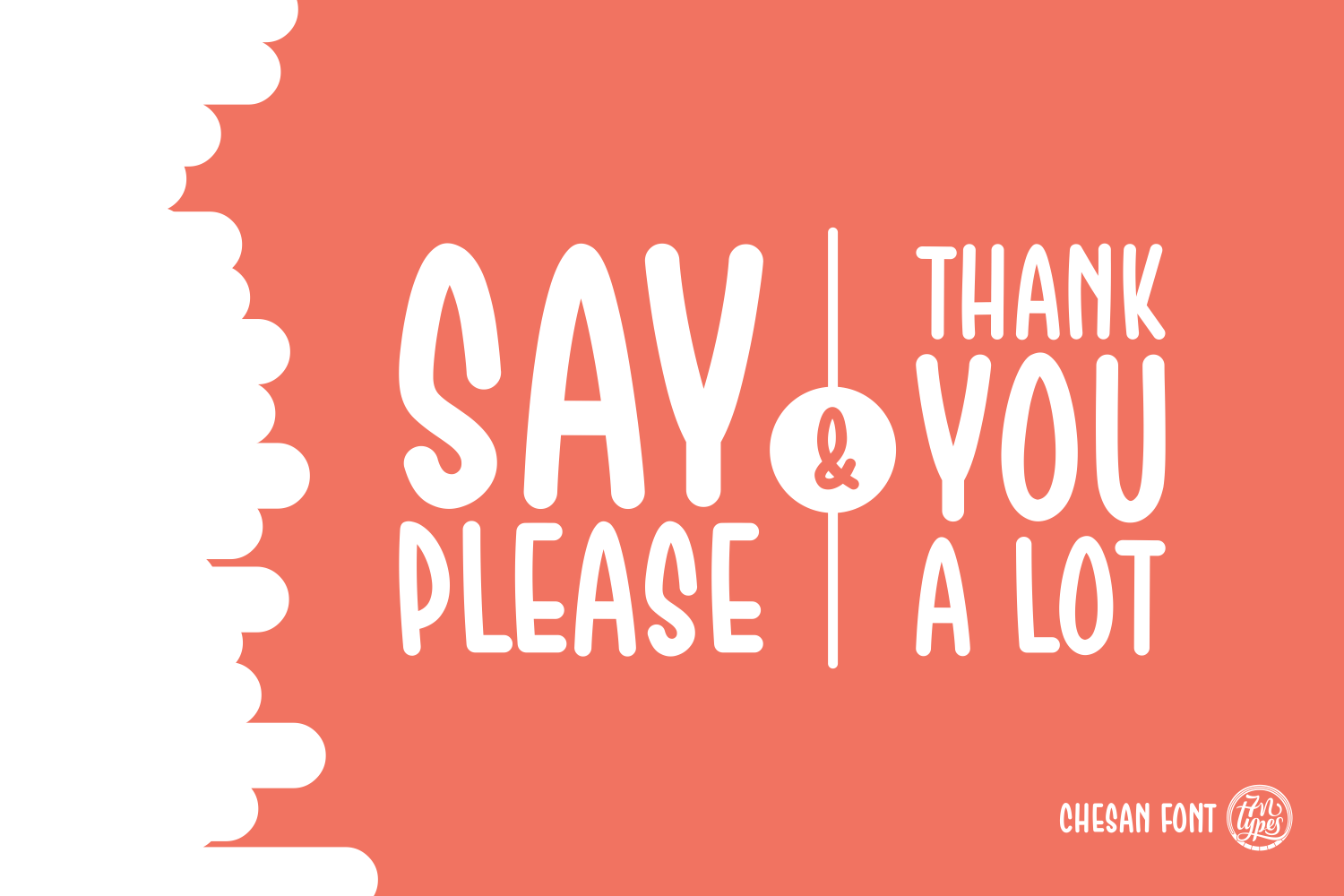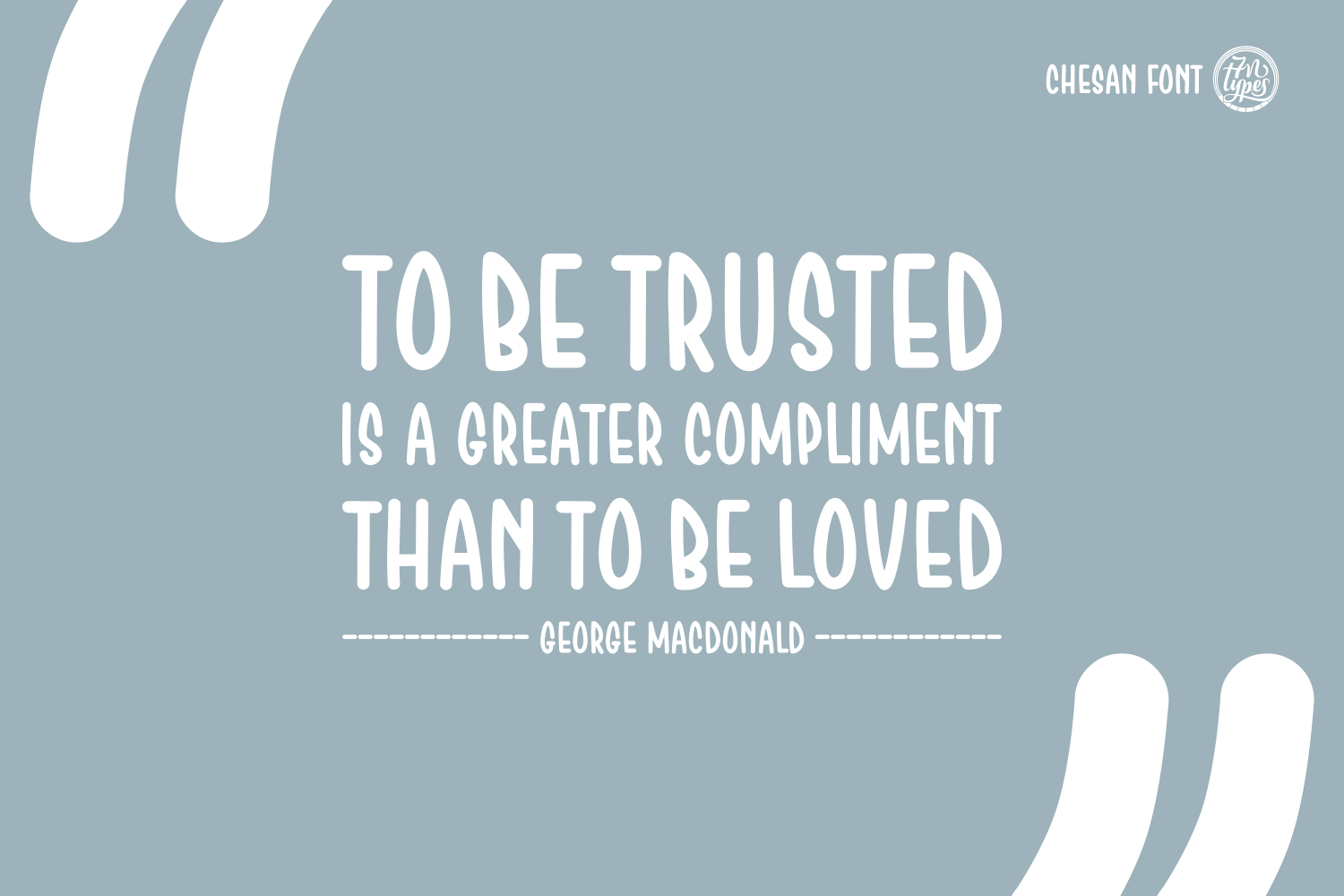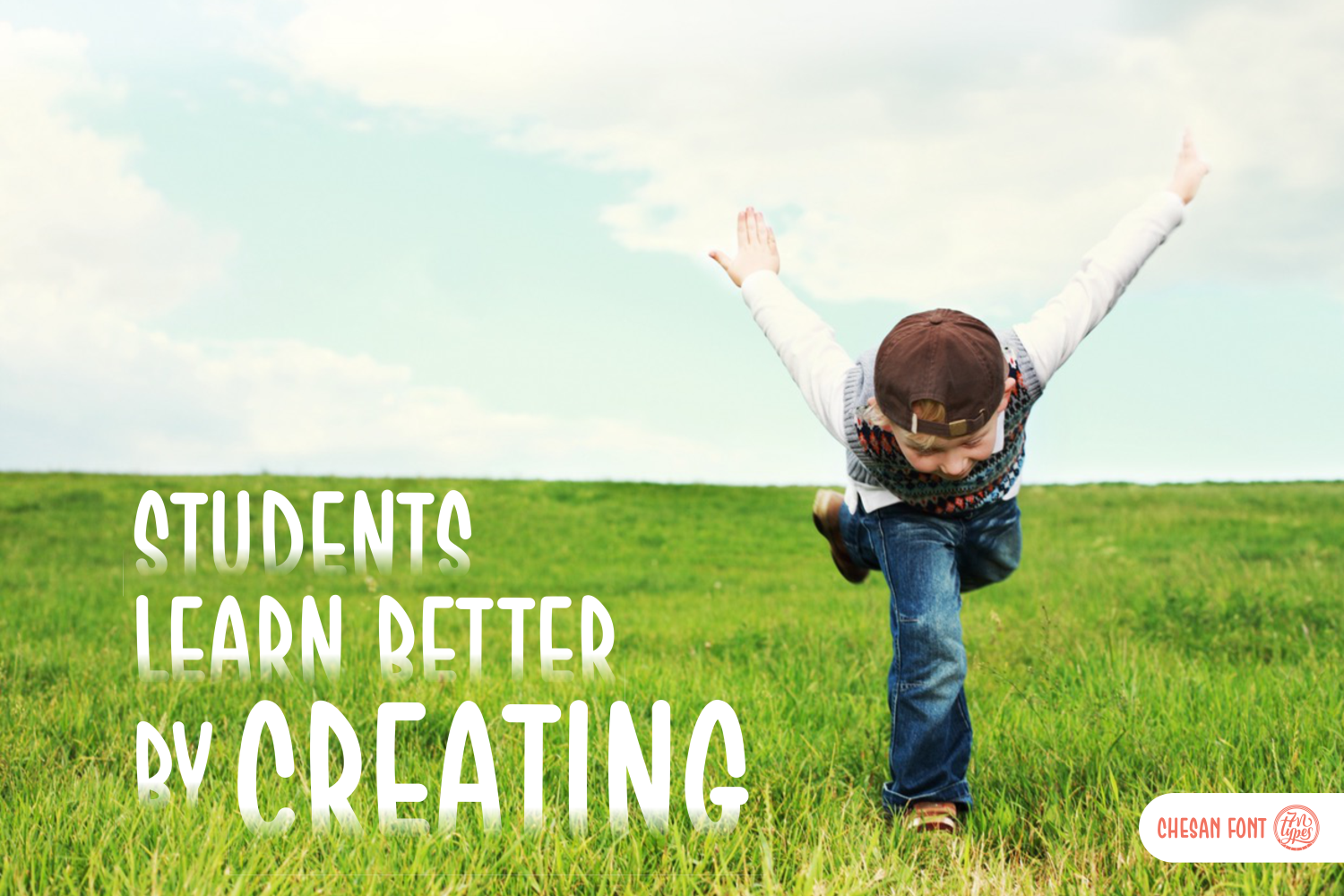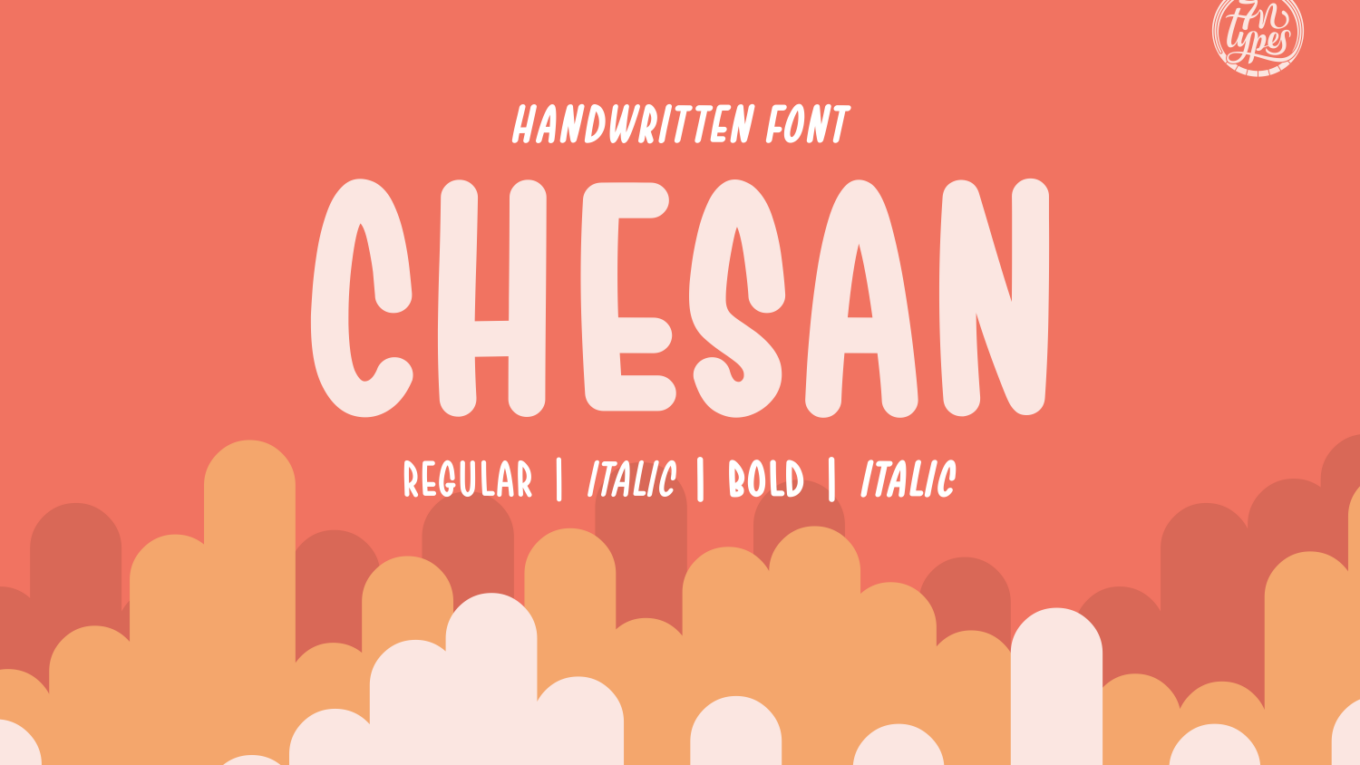
Introducing Chesan Font: A Playful and Versatile Handwritten Typeface
Are you tired of using the same old boring fonts in your designs? Look no further! Chesan Font is here to add a touch of playfulness and whimsy to your projects. This handwritten font boasts a cartoonesque feeling that’s sure to capture the attention of your audience. But don’t let its fun and carefree vibe fool you – Chesan is also incredibly legible, making it suitable for a wide range of applications.
The Characteristics of Chesan Font
So, what makes Chesan Font so special? For starters, its bold lines make it extremely easy to read, even at smaller sizes. This is especially important for designers who need to create text-heavy content that still looks visually appealing. Additionally, Chesan’s playful and handwritten feel gives it a unique personality that’s hard to find in more traditional typefaces.
The Variations of Chesan Font
Chesan Font comes in four exciting variations: regular, italic, bold, and bold italic. This range of options gives designers the flexibility to use Chesan in a variety of contexts, from headings and titles to body text and captions. Whether you’re creating a fun and playful design or a more serious and professional one, Chesan has got you covered.
Regular: The Classic Version
The regular version of Chesan Font is perfect for everyday use. Its clean and simple lines make it easy to read, and its playful feel adds a touch of personality to any design.
Italic: Adding a Touch of Elegance
The italic version of Chesan Font adds a touch of elegance and sophistication to the regular version. It’s perfect for designs that need a bit more flair, such as titles, headings, and emphasis text.
Bold: Making a Statement
The bold version of Chesan Font is perfect for making a statement. Its thick lines and confident feel make it ideal for headings, titles, and other attention-grabbing elements.
Bold Italic: The Ultimate Combination
The bold italic version of Chesan Font is the ultimate combination of style and substance. It’s perfect for designs that need a bit more emphasis, such as subheadings, captions, and highlights.
Using Chesan Font in Your Designs
So, how can you use Chesan Font in your designs? The possibilities are endless! Here are a few ideas to get you started:
- Use Chesan Font as a title font for a fun and playful blog or website.
- Create a bold and eye-catching heading for a poster or flyer.
- Add a touch of personality to your social media graphics with Chesan Font.
- Use Chesan Font as a display font for a logo or branding project.
Why Designers and Crafters Love Chesan Font
So, why do designers and crafters love Chesan Font? Here are just a few reasons:
- Its playful and handwritten feel adds a touch of personality to any design.
- Its bold lines make it extremely legible, even at smaller sizes.
- It comes in four exciting variations, giving designers the flexibility to use it in a range of contexts.
- It’s perfect for a wide range of applications, from fun and playful designs to more serious and professional ones.
In conclusion, Chesan Font is a versatile and playful handwritten typeface that’s perfect for designers and crafters who want to add a touch of personality to their projects. With its bold lines, cartoonesque feeling, and range of variations, Chesan Font is sure to become a favorite in your design toolkit. So why not give it a try today and see the difference it can make in your designs?